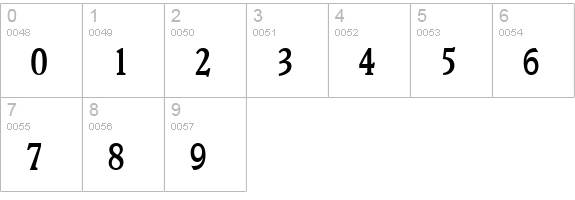
VeroneseMediumCondensed Font Details
VeroneseMediumCondensed is a sophisticated and versatile font that effortlessly balances modernity with classic elegance. It is the perfect choice for designers and creatives seeking a font that exudes professionalism and refinement. With its condensed form, VeroneseMediumCondensed allows for maximum impact in limited spaces, making it ideal for headlines, titles, and branding materials. Its clean lines and well-proportioned letterforms ensure readability even at smaller sizes, making it a reliable choice for body text as well. This font boasts a harmonious blend of curves and straight edges, creating a visually pleasing aesthetic that commands attention. Its medium weight strikes the perfect balance between boldness and subtlety, making it versatile for a wide range of design applications. One of the most appealing aspects of VeroneseMediumCondensed is that it is freely available to download at FontsMarket.com. This means that designers and enthusiasts alike can access this exceptional font without any cost, making it an excellent option for those on a budget or simply looking to experiment with a new typeface. Whether you are working on a branding project, a magazine layout, or a website design, VeroneseMediumCondensed will add a touch of sophistication and elegance to your work. Its versatility, legibility, and availability make it a must-have font for any designer's toolkit. Don't miss the opportunity to enhance your designs with this incredible font, freely accessible at FontsMarket.com.